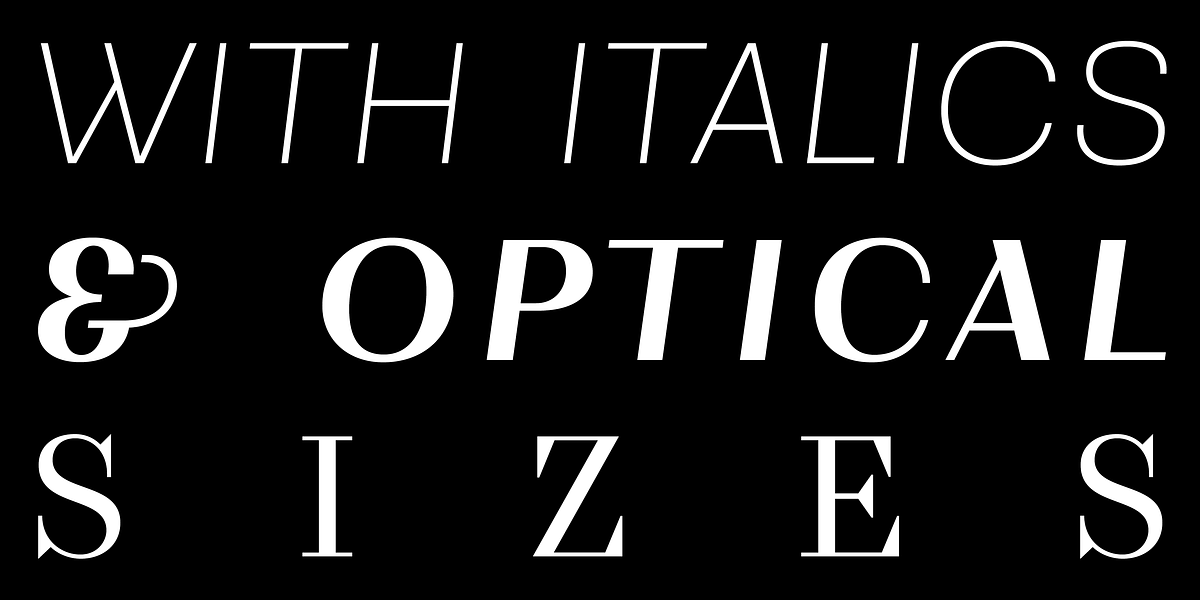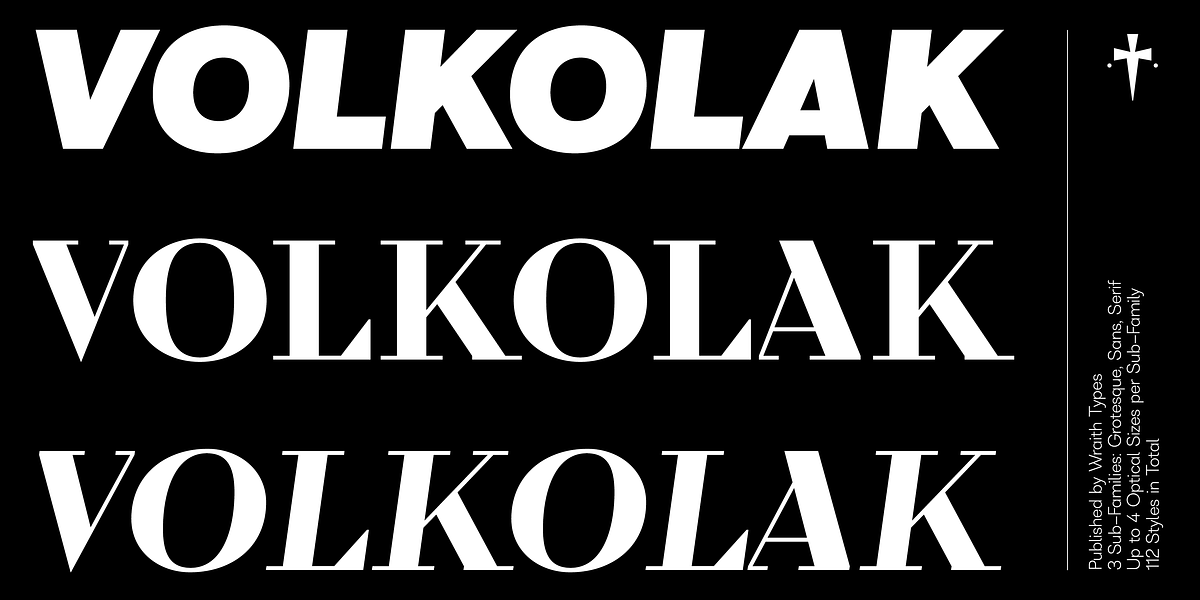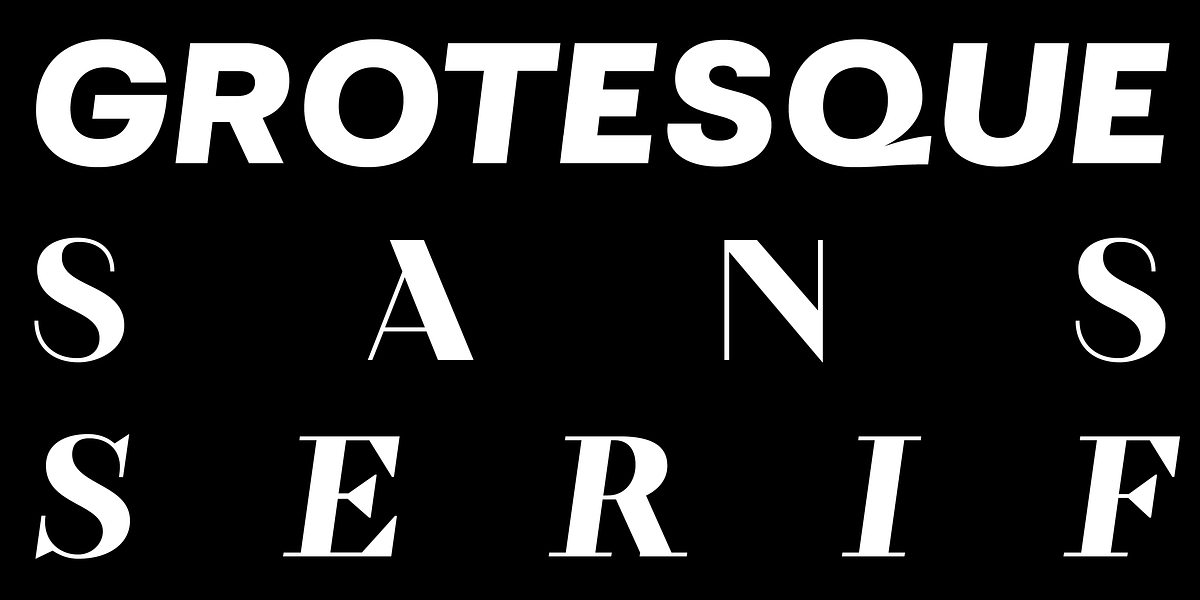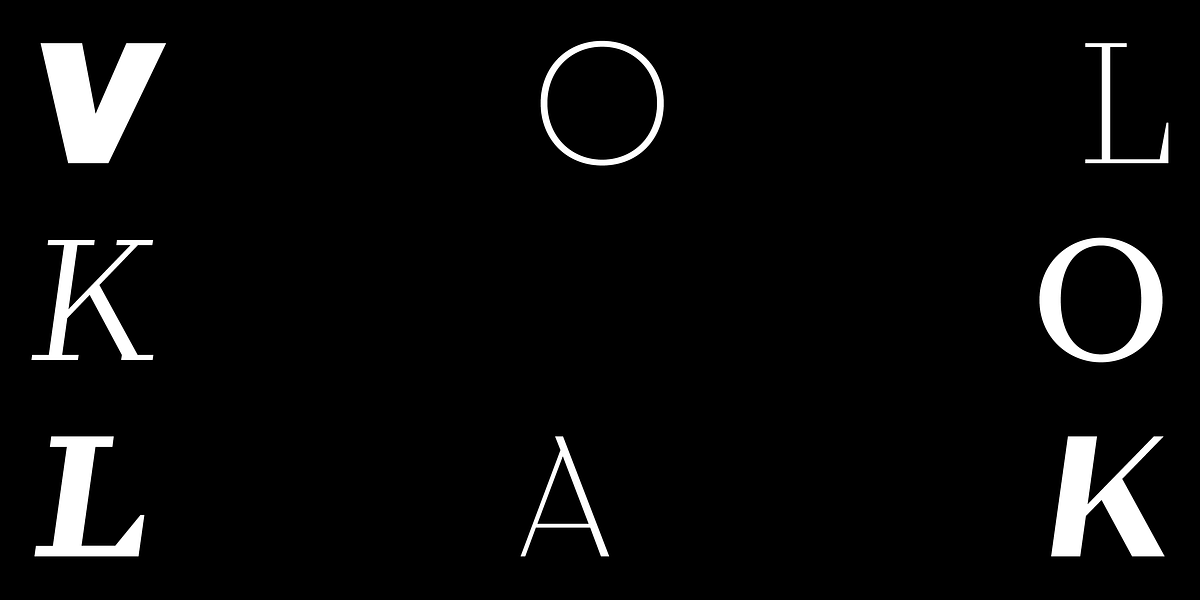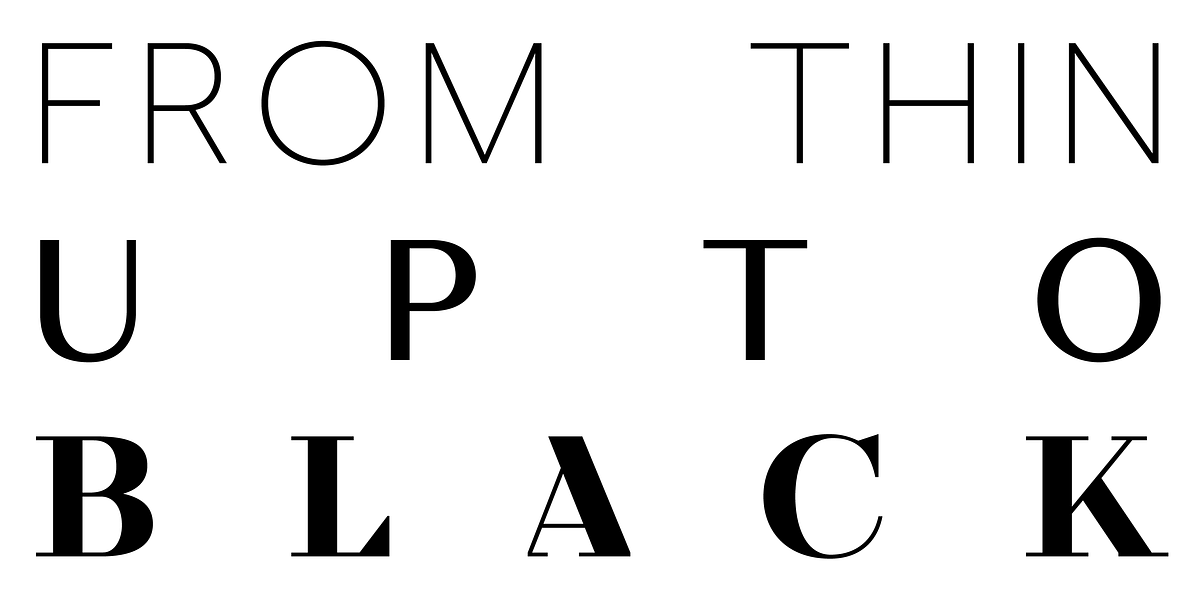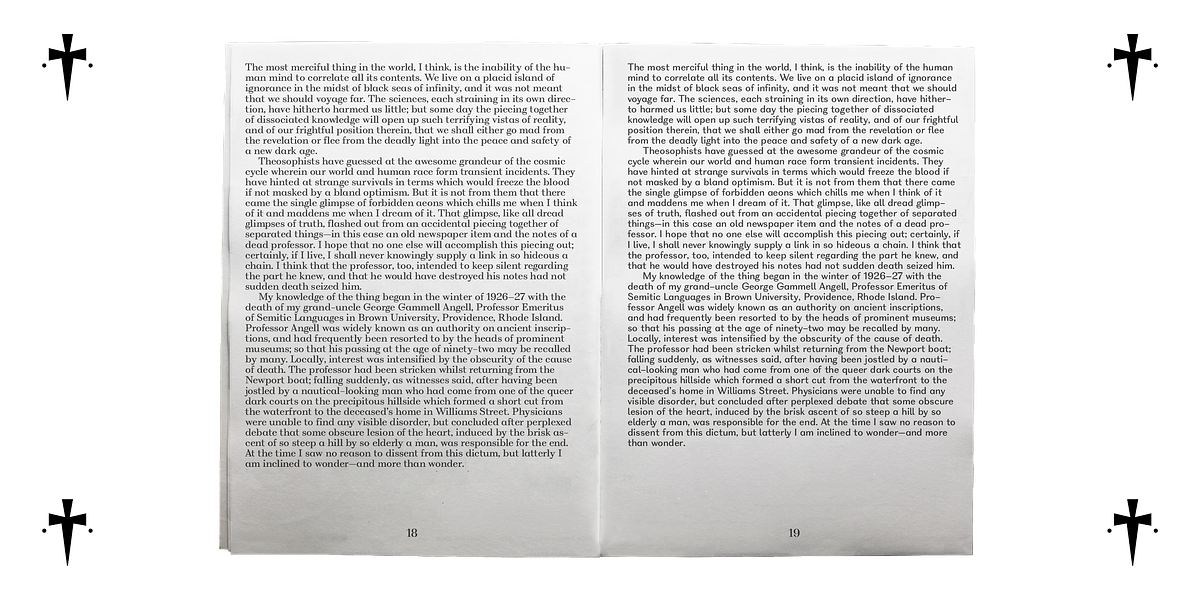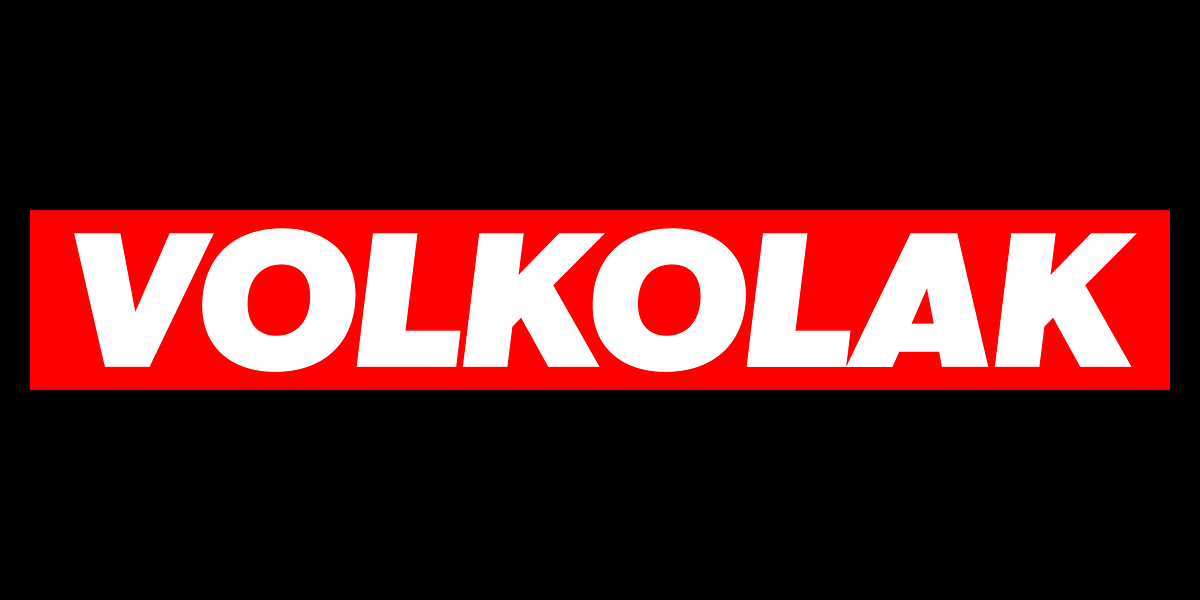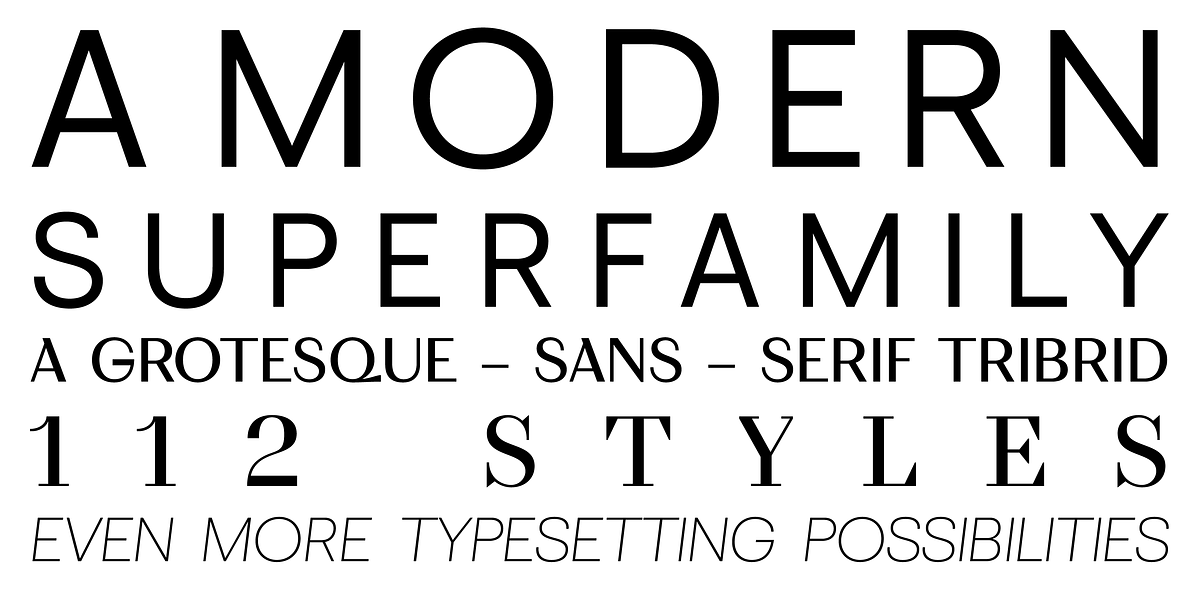
WT Volkolak
Volkolak is a unique typeface that combines the elegance of serif with the modern feel of sans serif and grotesque styles. This versatility makes it suitable for a wide range of applications, from editorial design and book publishing to branding and web design.